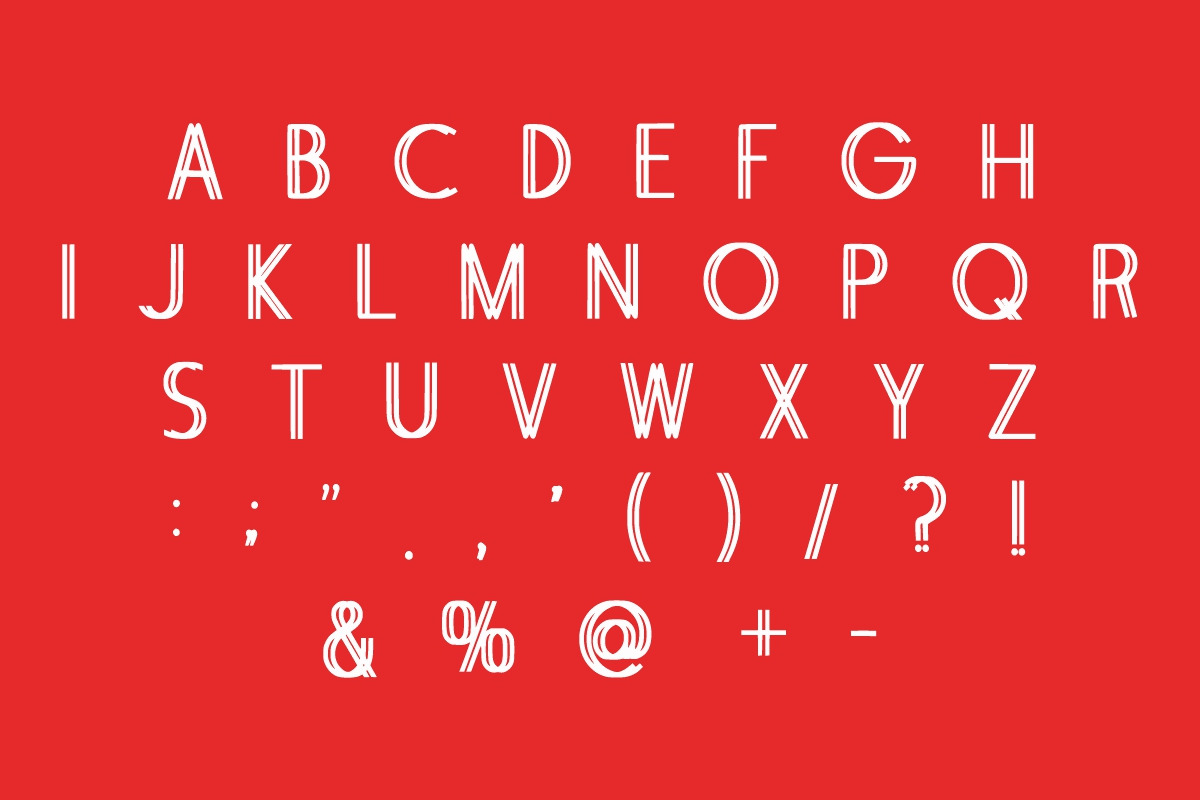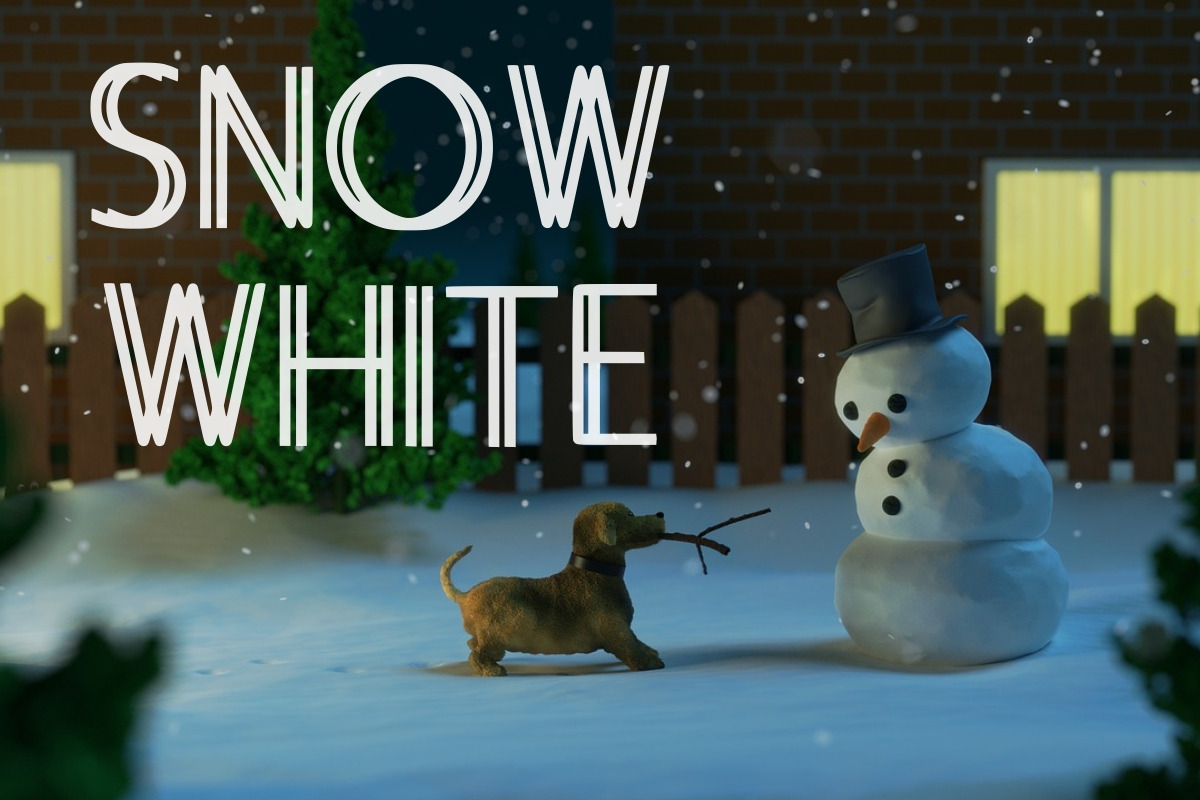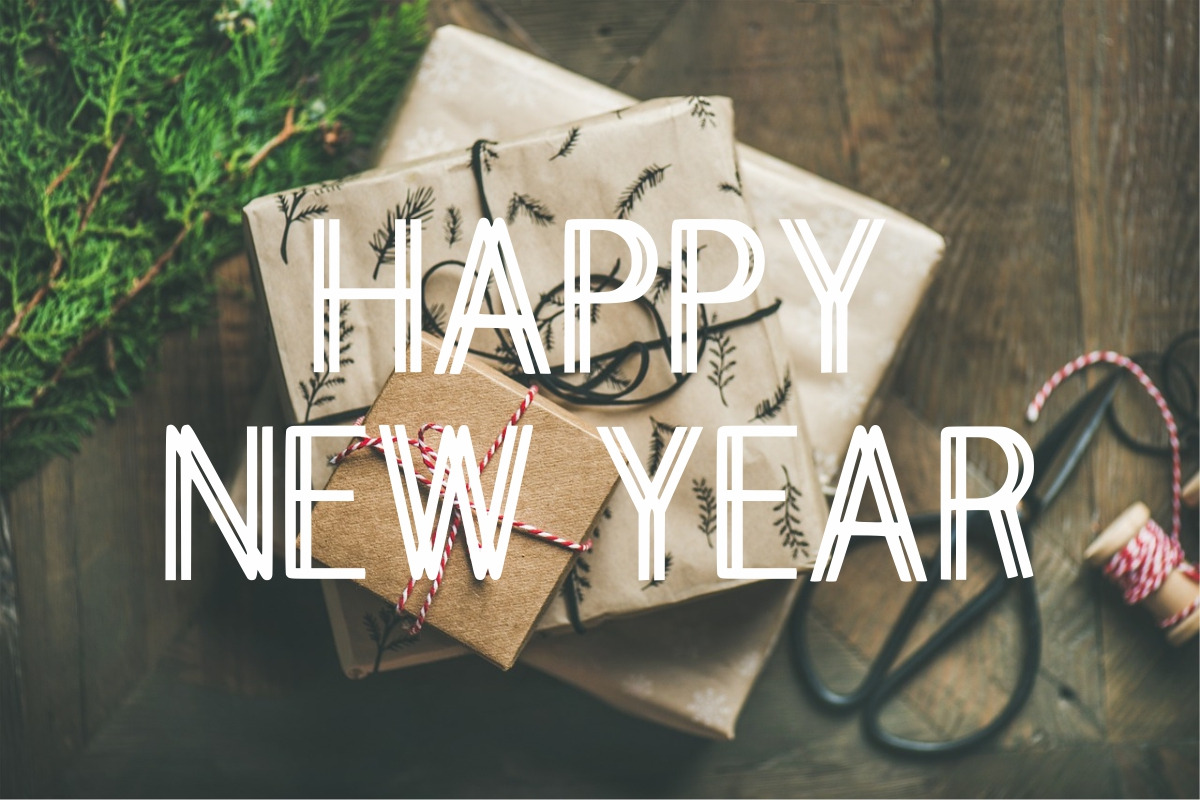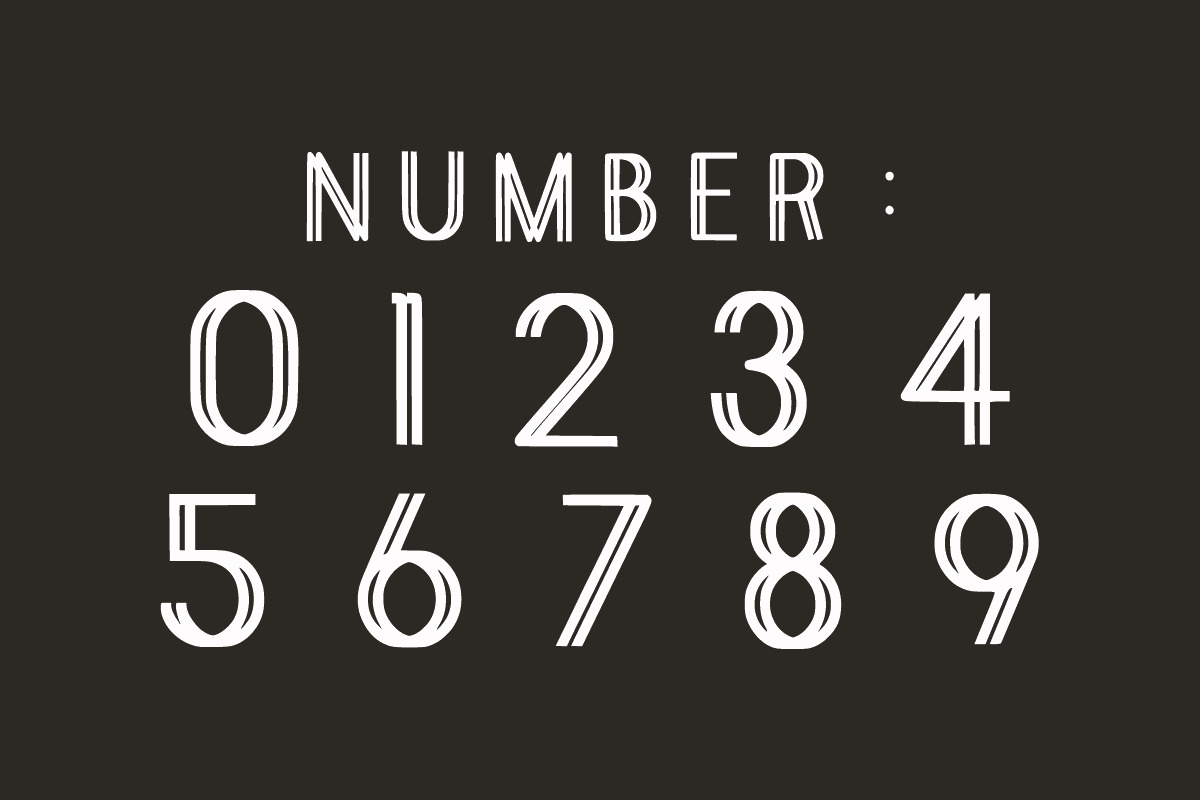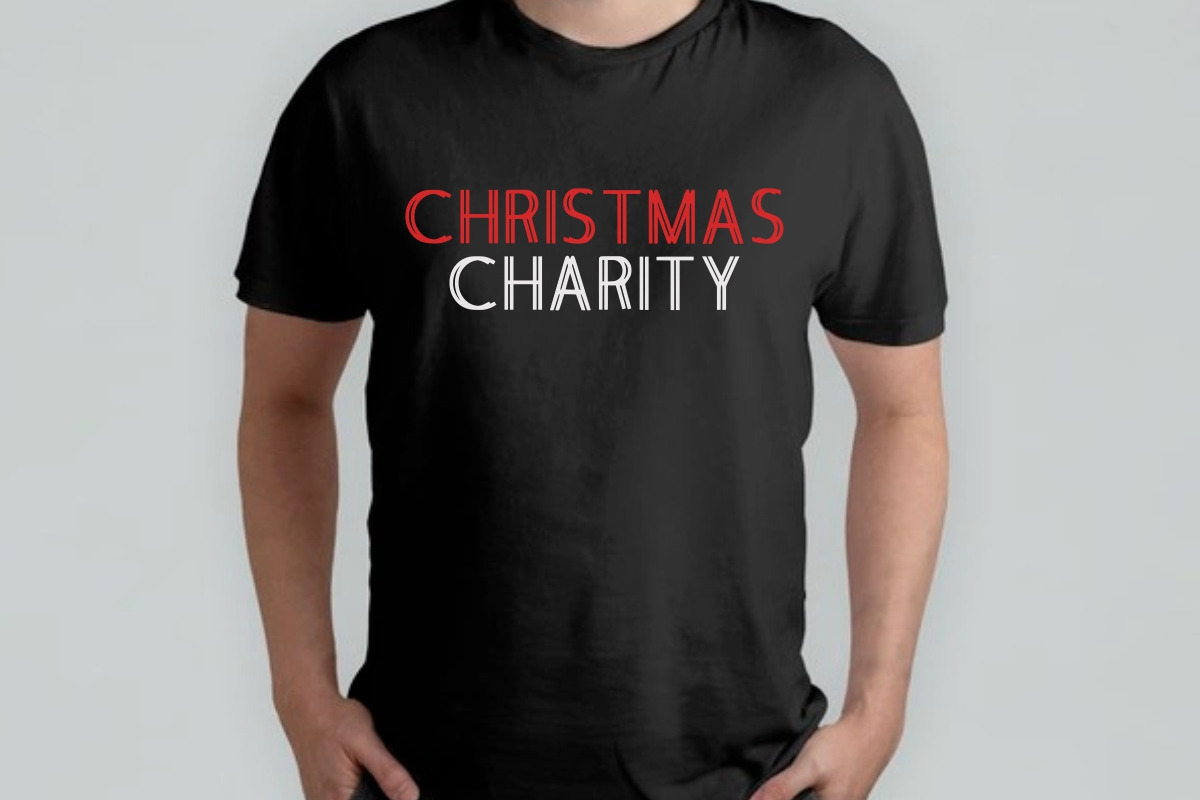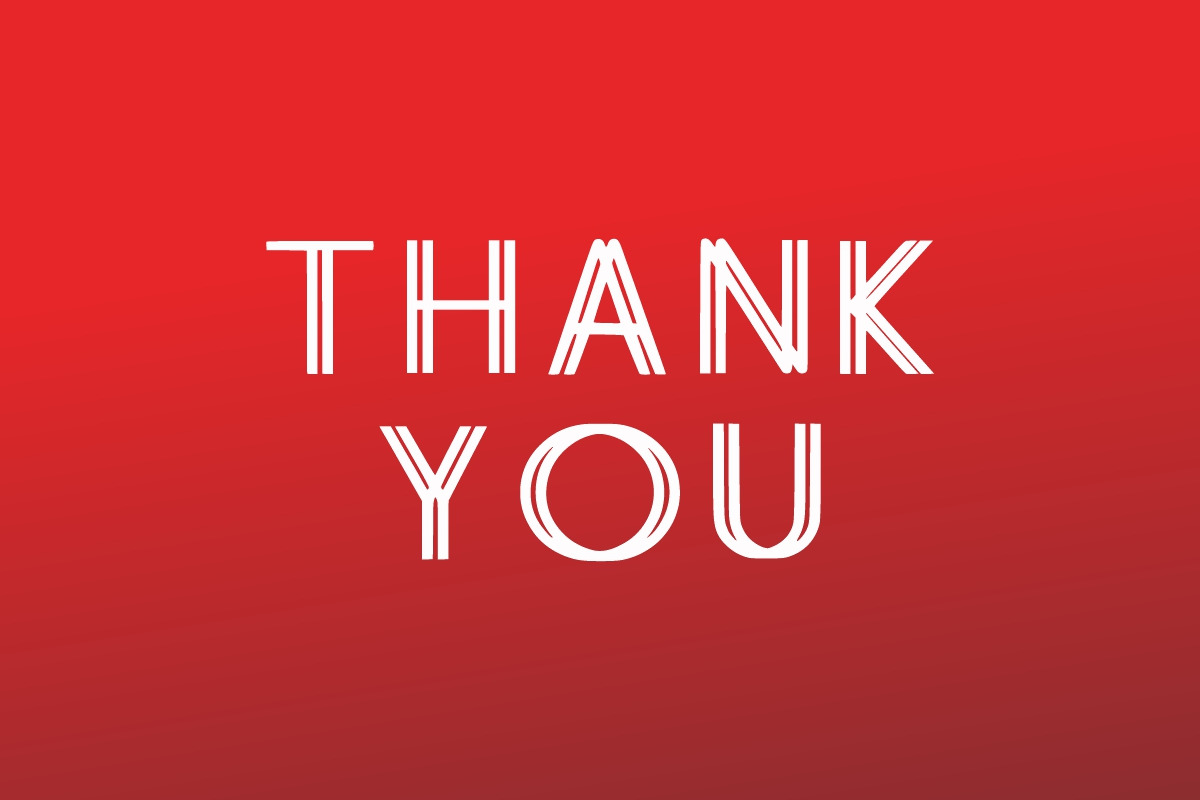
Christmas Holiday
Christmas Holiday is a fun and festive display font. It is suitable for any winter and holiday branding, product packaging, invitation, quote, t-shirt, label, poster, or logo that you wish to develop.